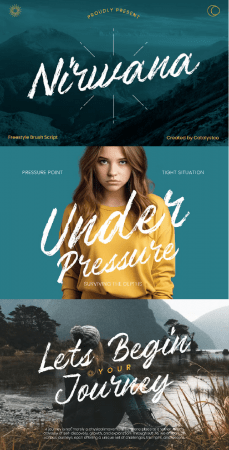
Nirwana Freestyle Brush Script Font typeface excellent used for the manufacture quote text, logotype, header magazine, and many more.
Uppercase & Lowercase
Ligatures & Alternate
Numeral & Punctuations
Multilingual Support